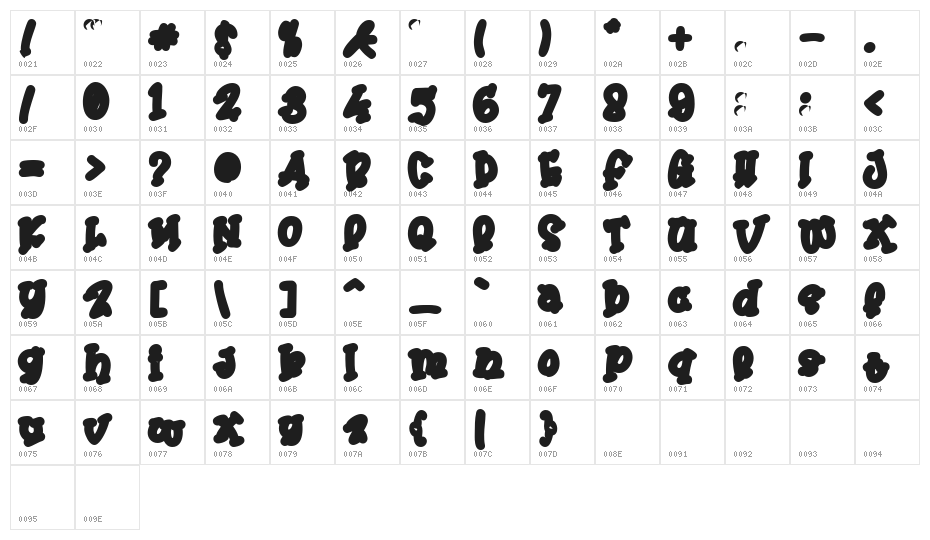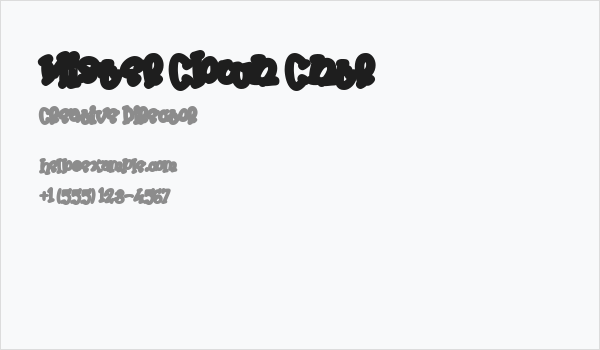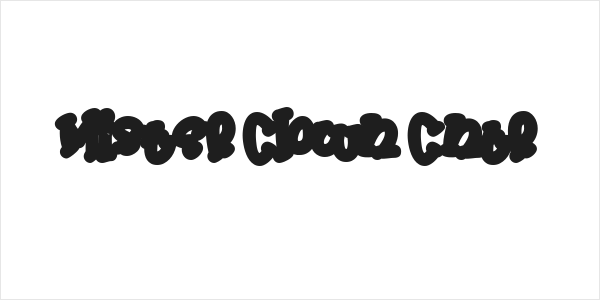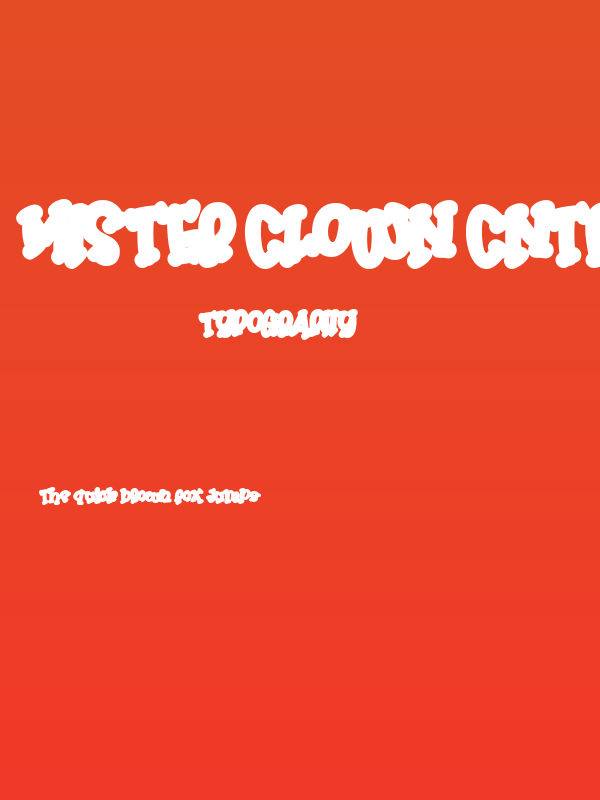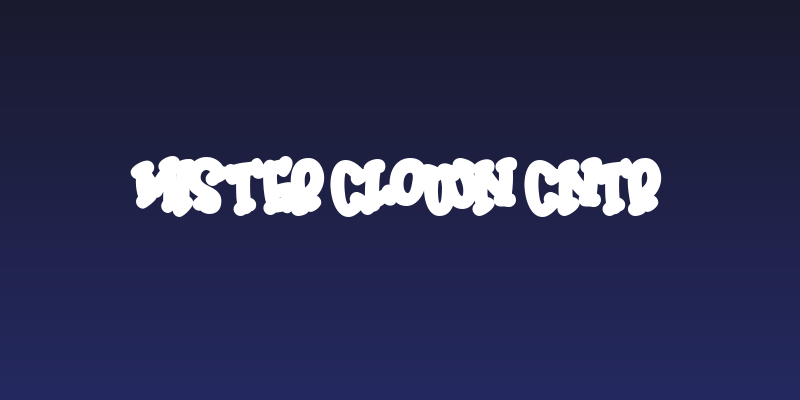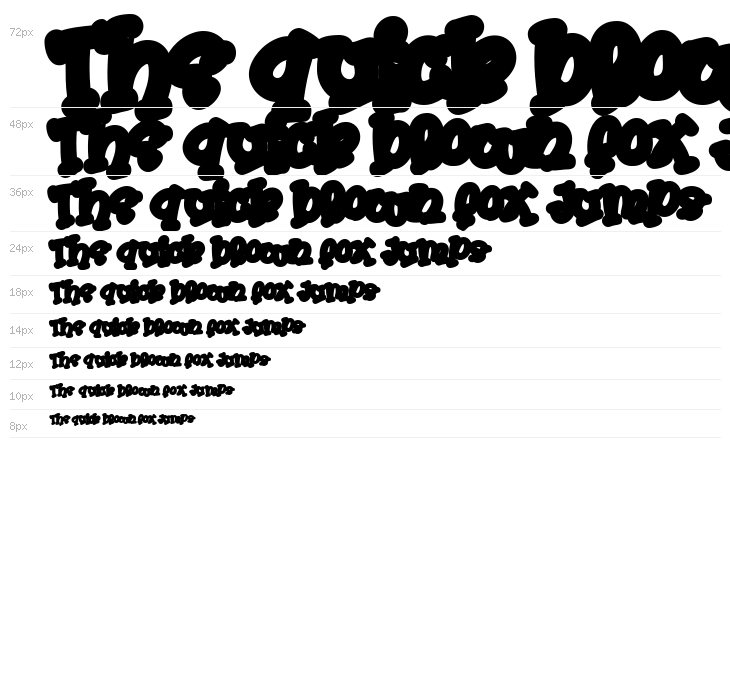
Mister Clown Cntr Font
Mister Clown Cntr Description
This font is a bold and playful script with a highly decorative style. The characters are heavily stylized, featuring thick strokes and a whimsical, almost cartoonish appearance. The letters are interconnected, creating a sense of flow and movement. The overall design is reminiscent of graffiti or street art, with an emphasis on creativity and expression. The font's unique style makes it stand out, with each character having a distinct personality. The boldness of the strokes ensures high visibility, making it suitable for eye-catching designs.
| Proposed Projects | Ideal for posters, event flyers, children's book covers, and branding for creative industries. |